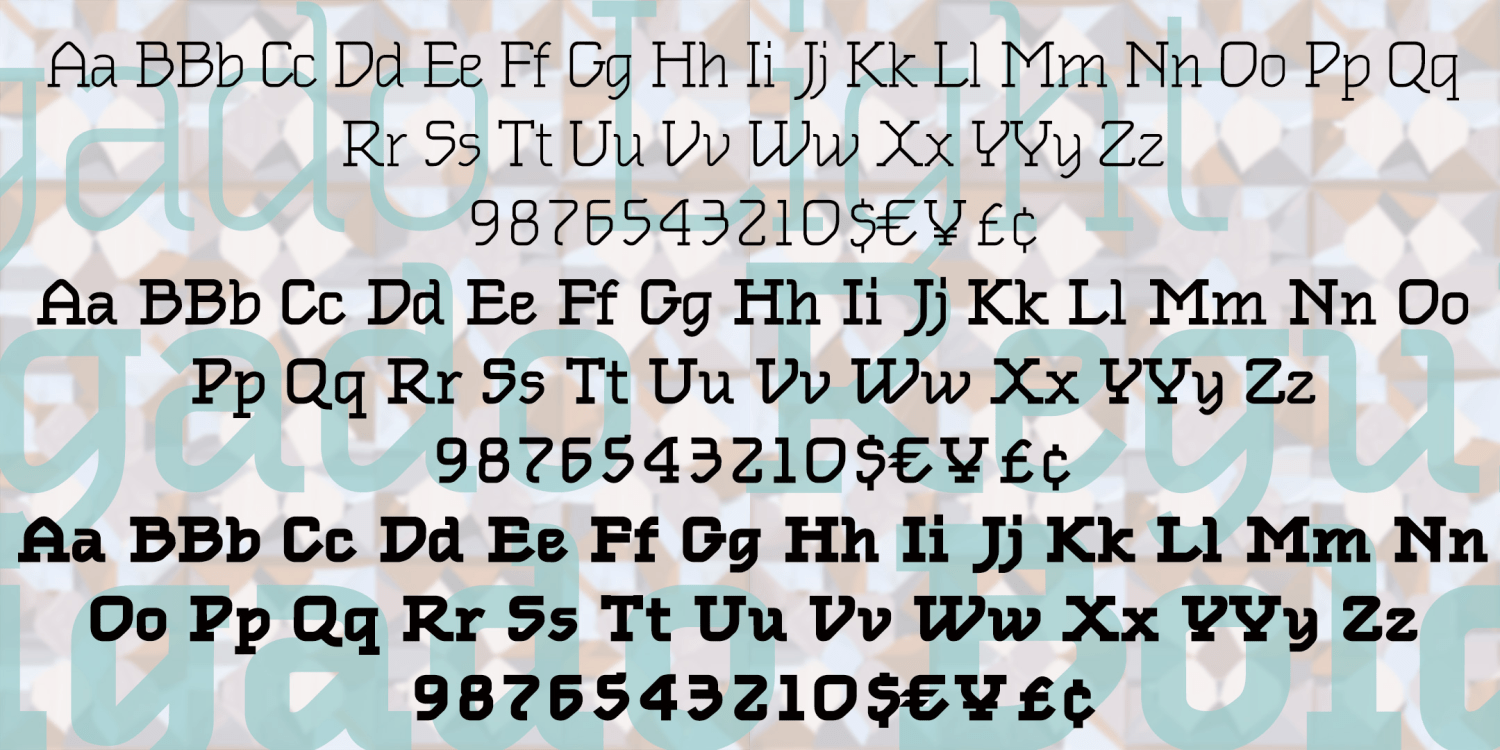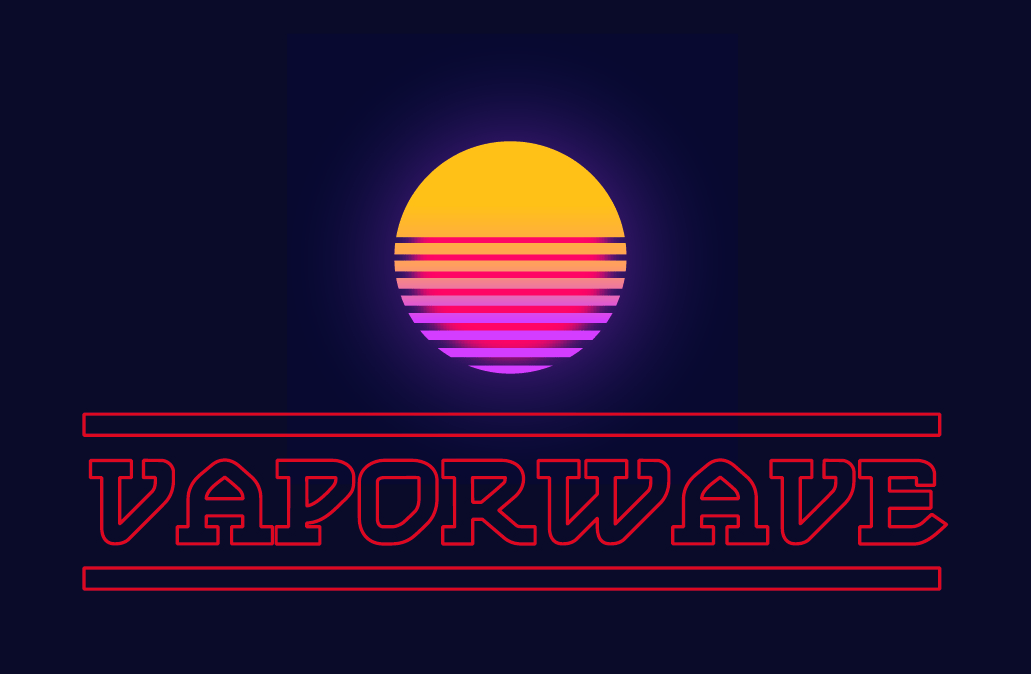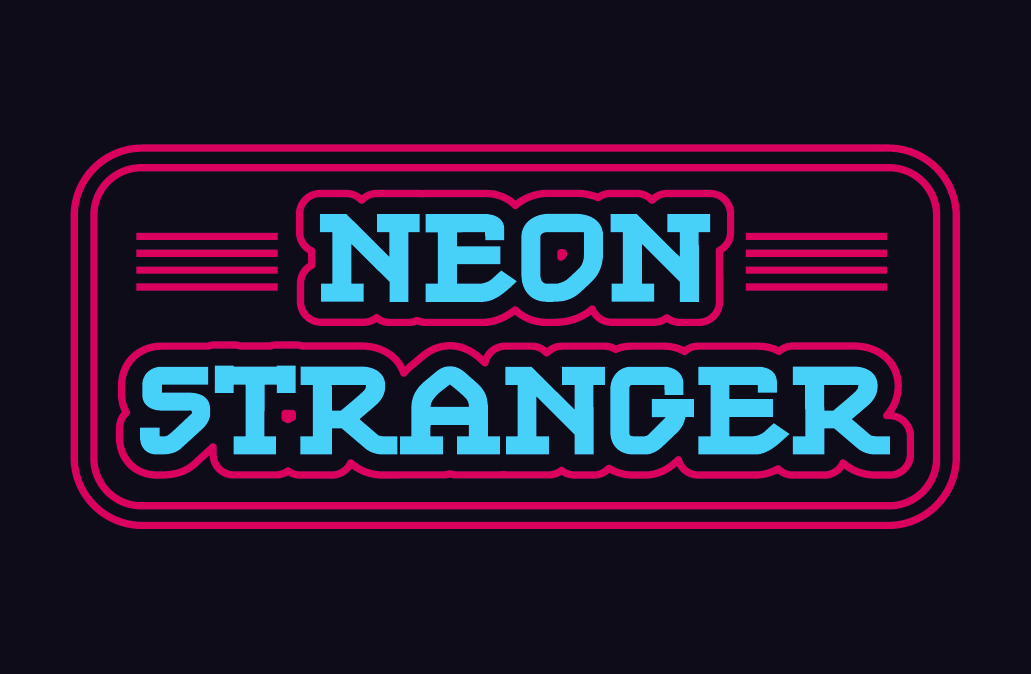
Obligado
Obligado is a stylish slab-serif font in three weights. The strong diagonals in each letter create a novel effect while remaining very legible for continuous reading. Obligado was inspired by 2 sheets of 1983 dry-transfer lettering from Esselte/Letraset, designer unknown. My fonts were first released as "Oblique Text." The new fonts are greatly expanded and improved from the original series.
The Obligado font family includes 344 glyphs.